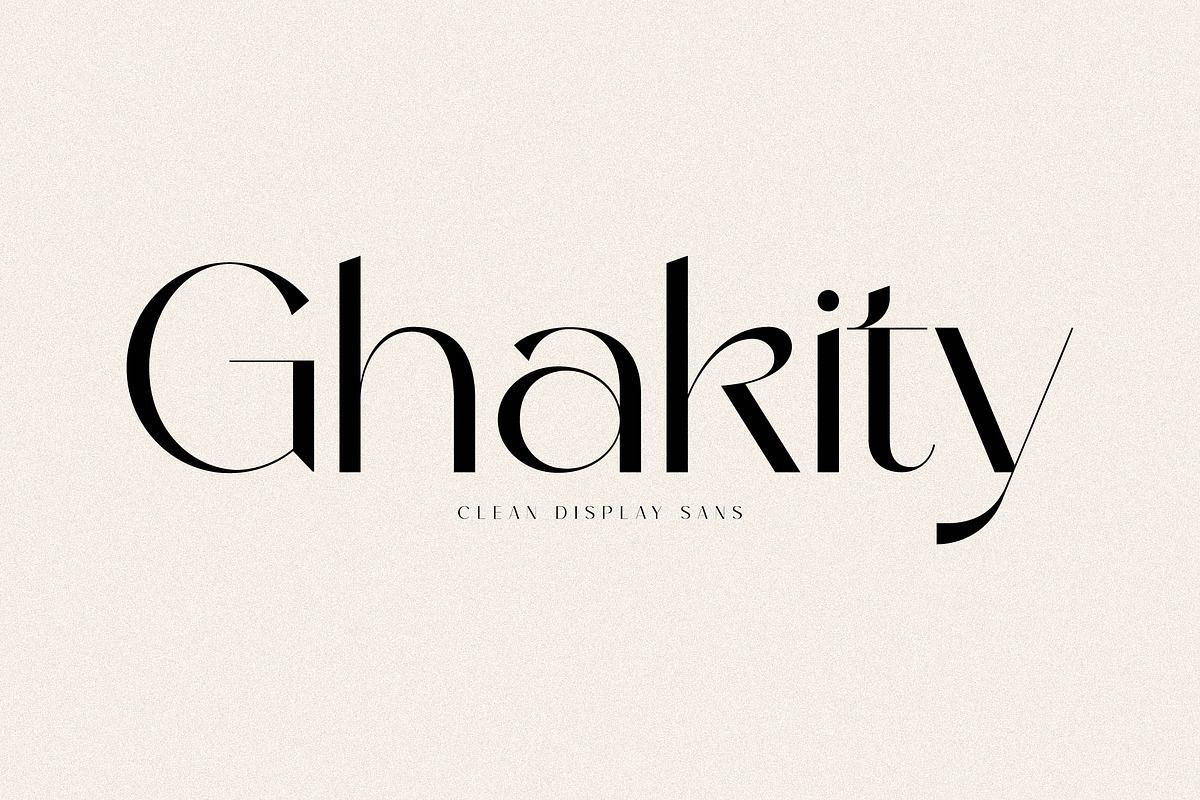
Ghakity Clean Display Sans Font Free Download is a sleek, modern typeface designed for clean, professional designs. With its minimalist approach and crisp lines, Ghakity is perfect for headlines, logos, posters, websites, and more. The clean and bold design ensures that your message stands out clearly, making it ideal for both digital and print applications.